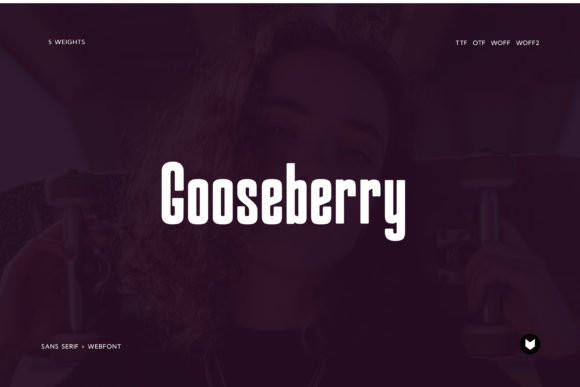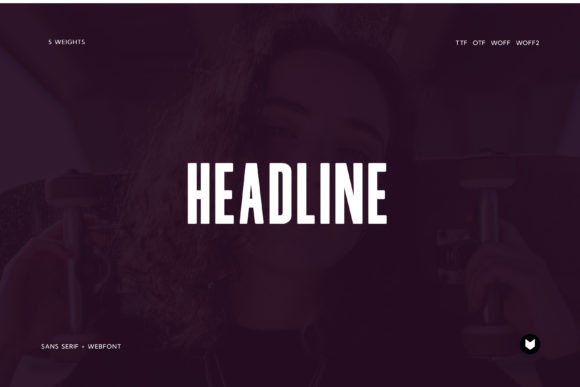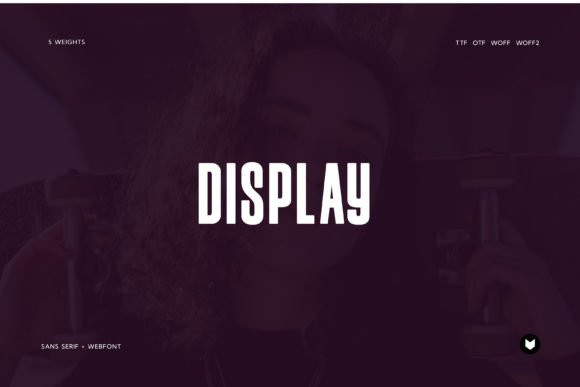
Gooseberry Font
Gooseberry is a cool, simple and modern display font. This font is ideal for writing web designs, business cards, or pretty much anything else that requires a stunning touch.